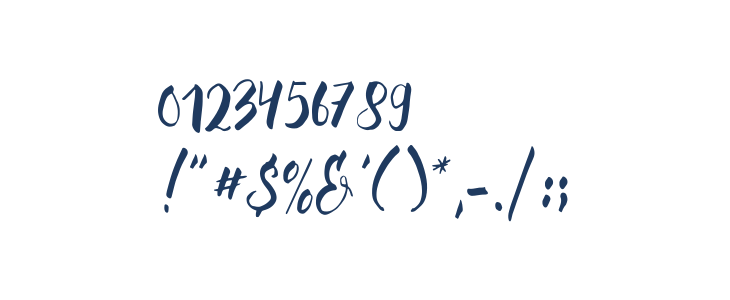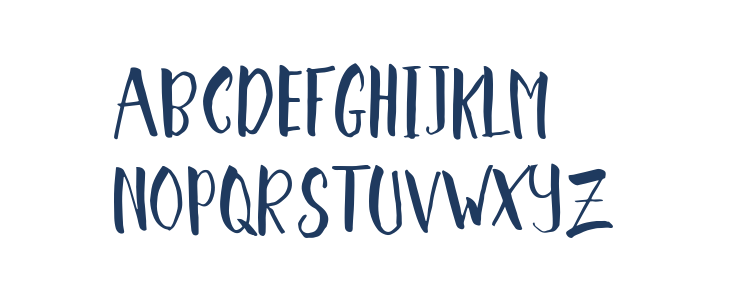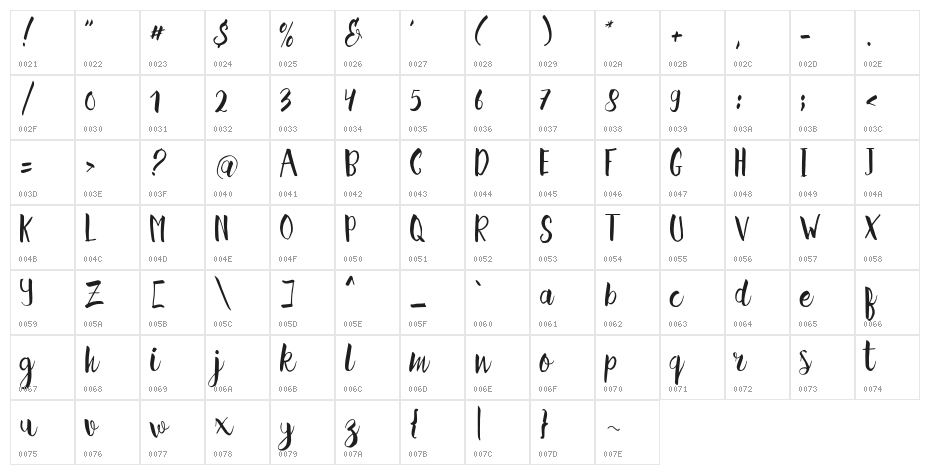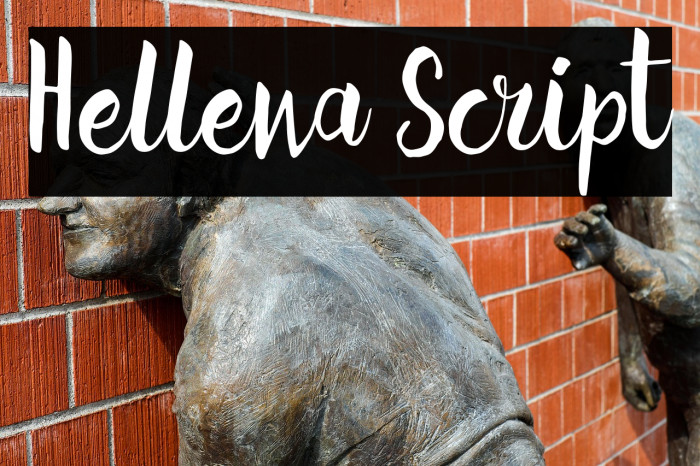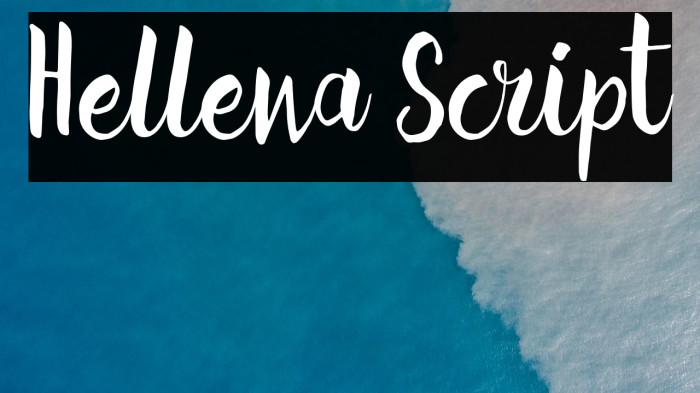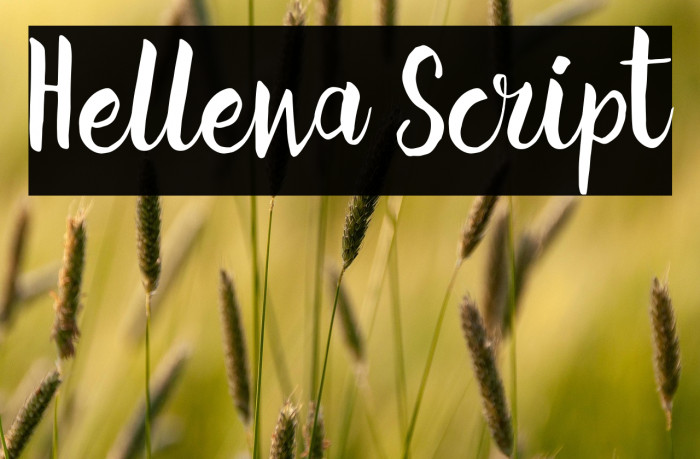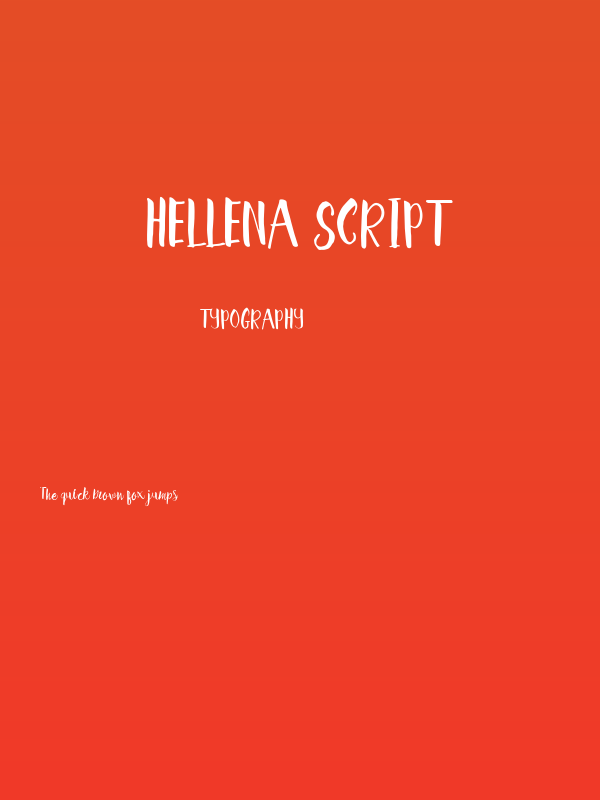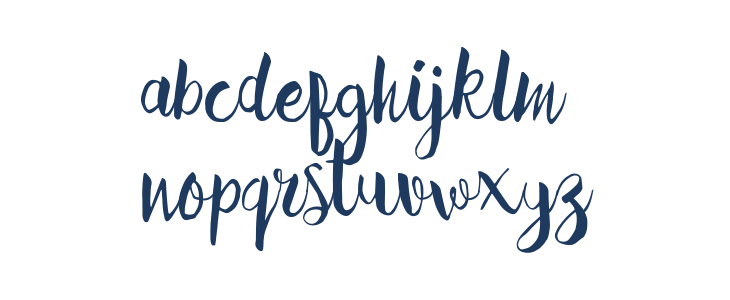
Hellena Script Font
Hellena Script Description
A lively and expressive script font with a hand-painted brush style, featuring irregular strokes and a casual, artistic feel. The uppercase letters are tall and slightly condensed, while the lowercase letters flow smoothly with varying stroke widths.
| Width | Condensed |
| Overall Style | Casual, Artistic |
| Use Case | Headlines, Logos, Decorative text |
| Proposed Projects | Invitations, greeting cards, branding for creative businesses, posters, and social media graphics. |